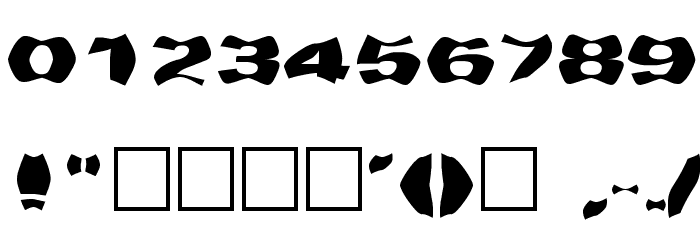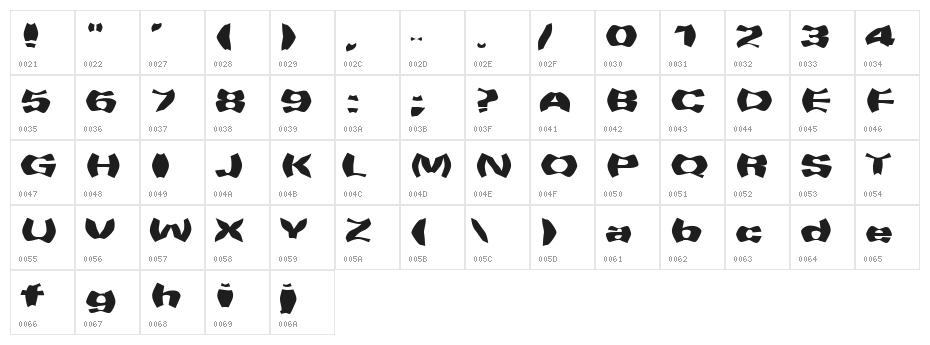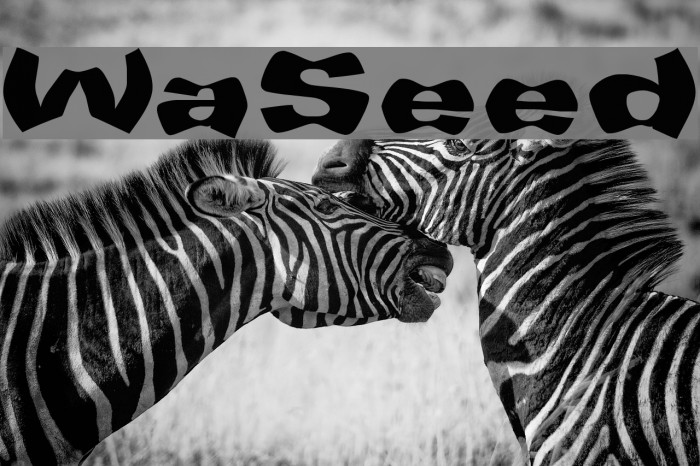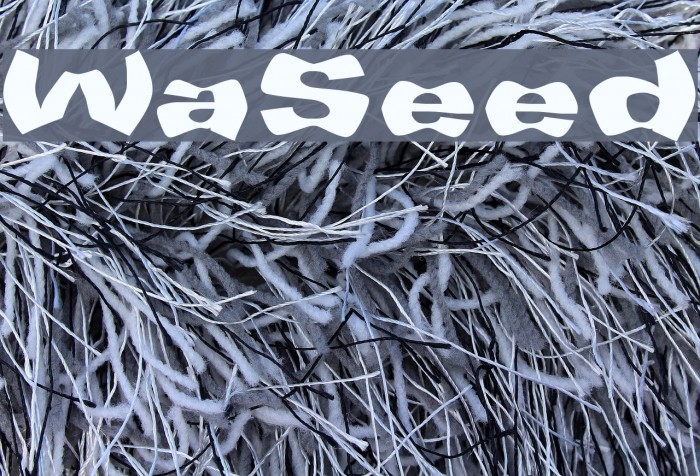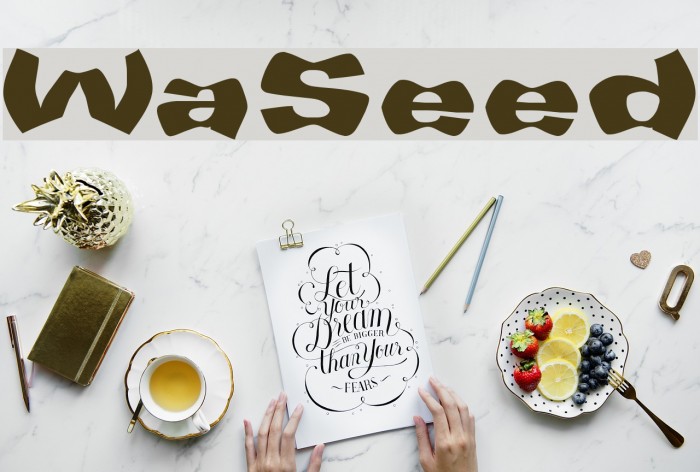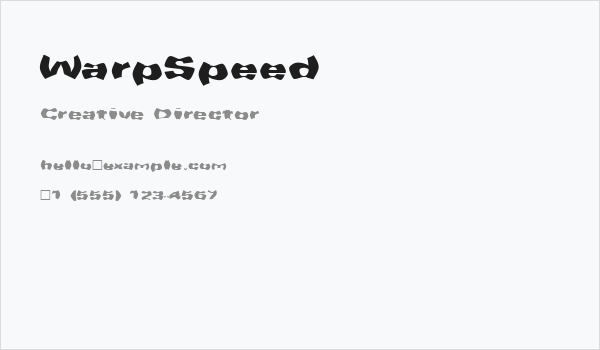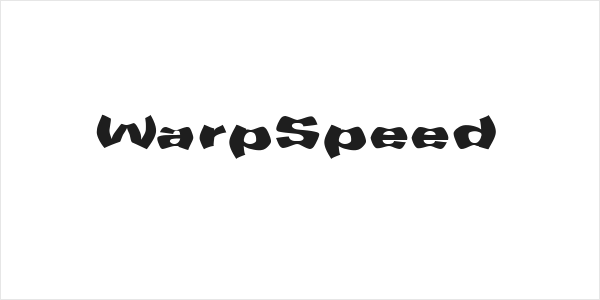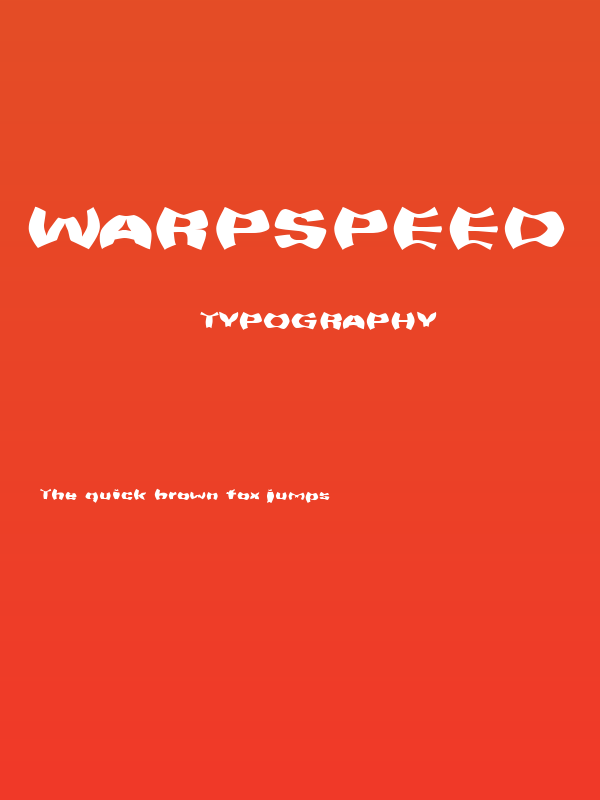
WarpSpeed Font
WarpSpeed Description
This font features a bold and dynamic design with a futuristic and edgy appearance. The characters are uniquely shaped with sharp angles and irregular forms, creating a sense of movement and energy. The uppercase and lowercase letters maintain a consistent style, while the numbers and special characters complement the overall aesthetic. The font's distinctive look makes it stand out, ideal for projects that require a modern and unconventional typeface.
| Overall Style | Futuristic, Edgy |
| Proposed Projects | Ideal for sci-fi themed designs, video game titles, movie posters, or any project requiring a modern and edgy look. |